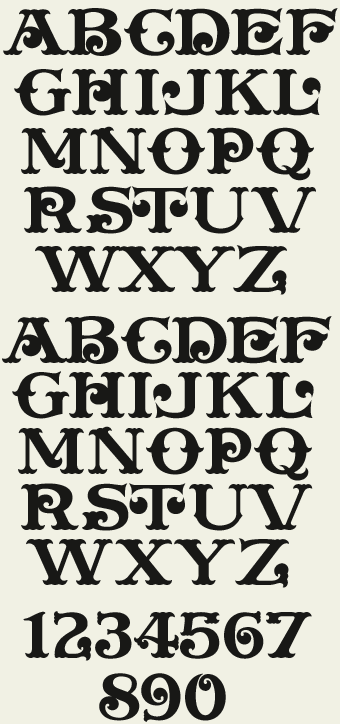
Fanciful period-style typeface from gold leaf specialist Gregg Heger. Circa early 1900's. Especially well-suited for fire truck restoration (Gregg's own specialty). Includes numbers, full punctuation and accents.